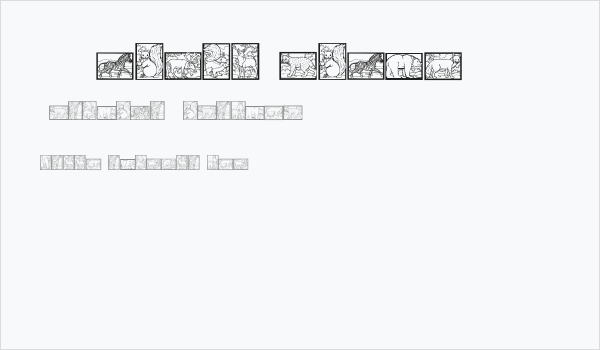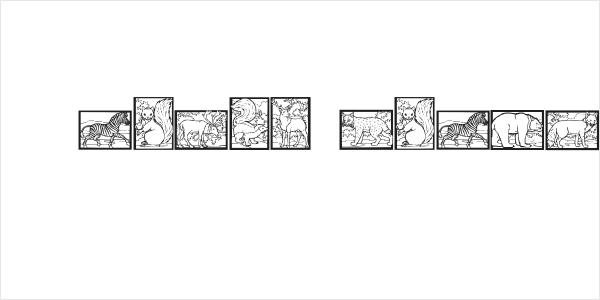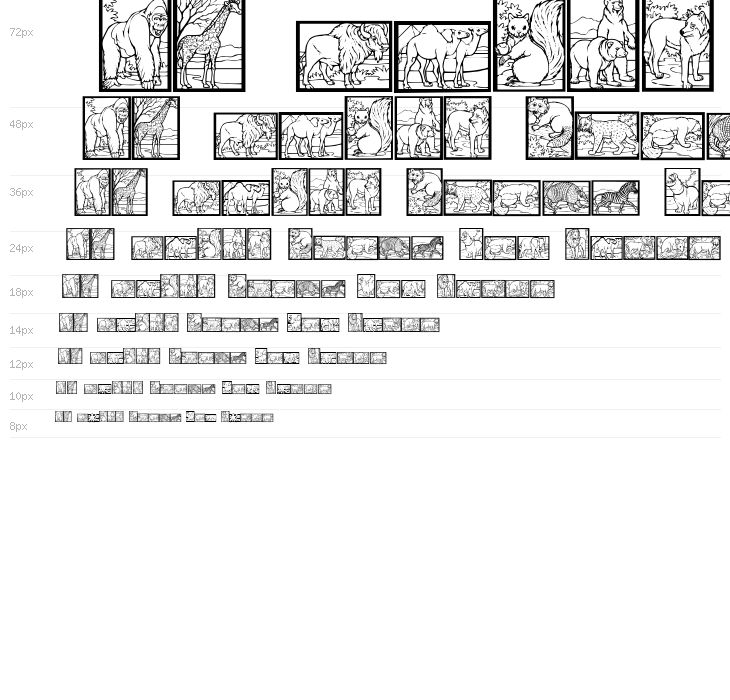
WWAnimalPrints Font
WWAnimalPrints Description
A decorative collection of outlined animal illustrations within rectangular frames, each representing a different animal or scene in a sketch-like, hand-drawn style. The characters are not traditional letters or numbers but rather detailed animal drawings.
| Overall Style | Decorative, Hand-drawn, Playful |
| Use Case | Decorative elements, educational visuals, themed crafts |
| Proposed Projects | ChildrenΓ’β¬β’s books, educational materials, animal-themed posters, scrapbooking, creative projects. |